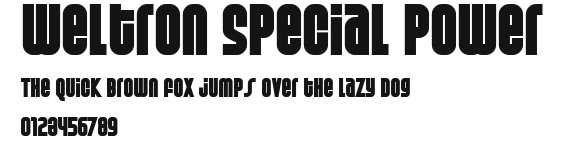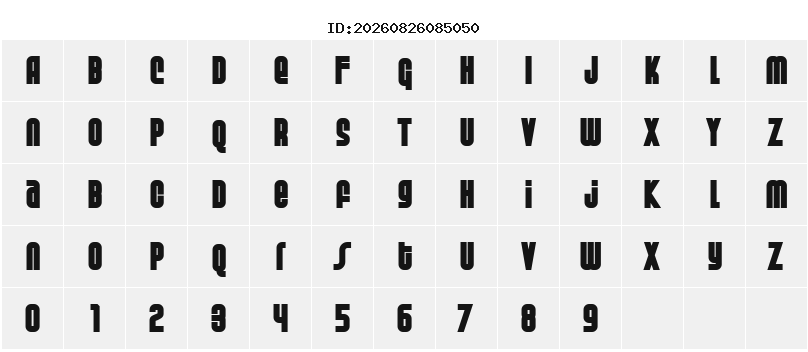
Weltron Special Power Preview
• Font Name: Weltron Special Power
• Full Font Name: Weltron Special Power
About Weltron Special Power.ttf
Weltron Special Power.ttf is a modern, elegant sans-serif font designed for ultimate readability and visual harmony. Perfect for branding, headlines, web design, and print materials.